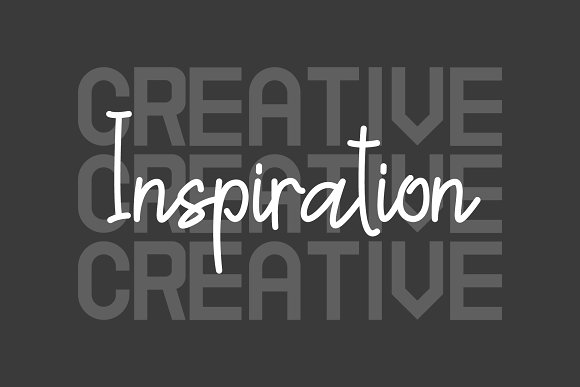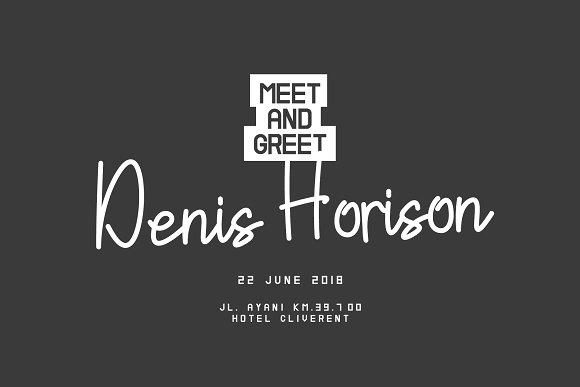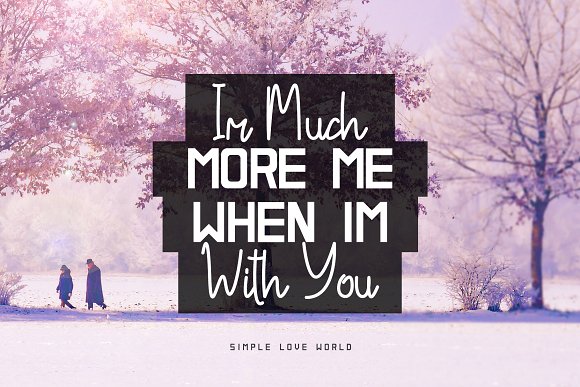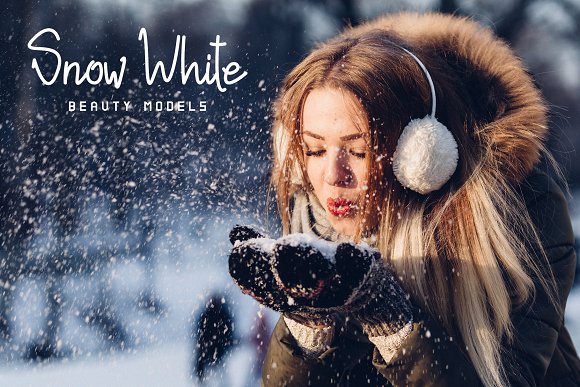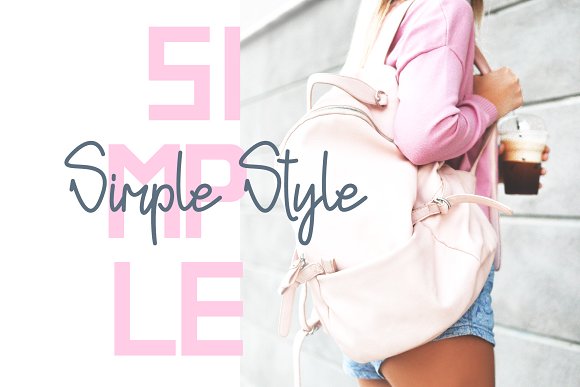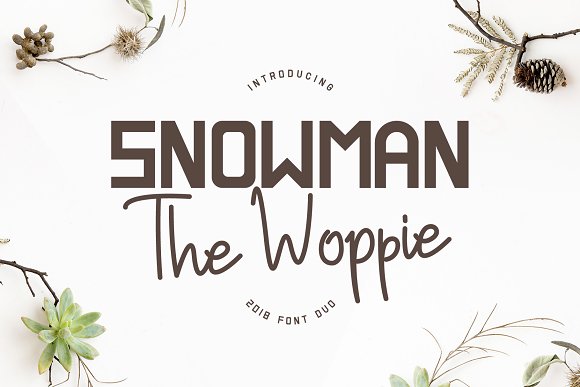
Snowman The Woppie – Font Duo
SnowmanTheWoppie is a font duo consisting of a sophisticated signature-style script, and an elegant, classy, all-caps sans font. SnowmanTheWoppie is perfect for adding a classy, modern touch to your projects.
SnowmanTheWoppie is to use for any kind of design such as branding projects, logos, wedding designs, social media posts, advertisements, product packaging, product designs, labels, photography, watermarks, invitation, stationery and any projects.